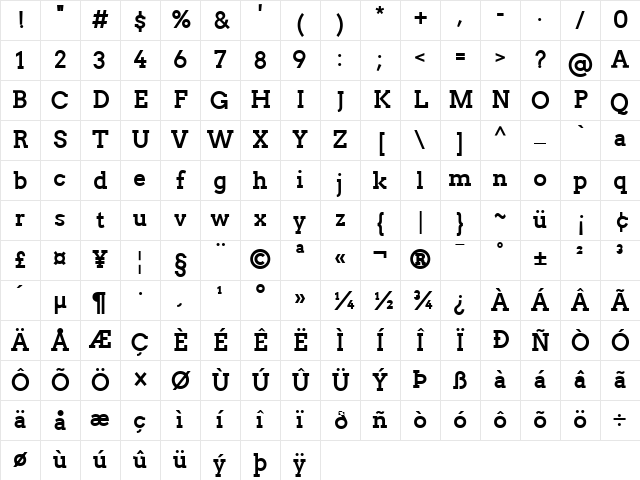
Designer: Domenico Catapano
Design Context for Twentytwelve Slab
Twentytwelve Slab features prominent, blocky serifs that give it a confident, grounded presence - equally at home in editorial settings and bold branding work.
Pro Tip: Use Twentytwelve Slab for headlines and subheadings where its slab serifs can make an impression. It also holds up well in mid-size body copy thanks to its sturdy construction.